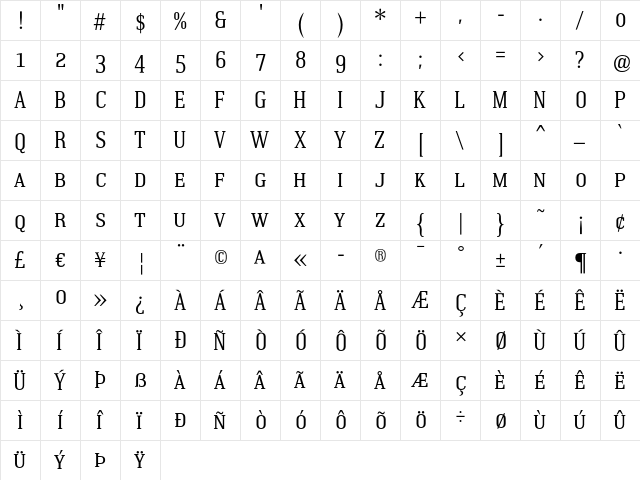
Krasivyi SC OsF Regular
Design Context for Krasivyi SC OsF Typeface
Krasivyi SC OsF takes a measured approach to typography — its balanced proportions and neutral character make it a reliable workhorse for both digital and print work.